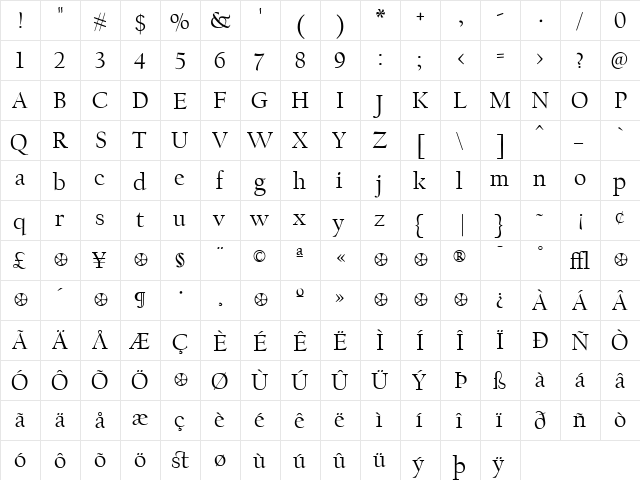
CalifornianMiddle Regular
| Foundry | Copr. The Font Bureau, Inc |
Design Context for CalifornianMiddle Typeface
CalifornianMiddle offers clean, dependable letterforms without strong stylistic allegiance, making it a practical choice for designers who need flexibility.